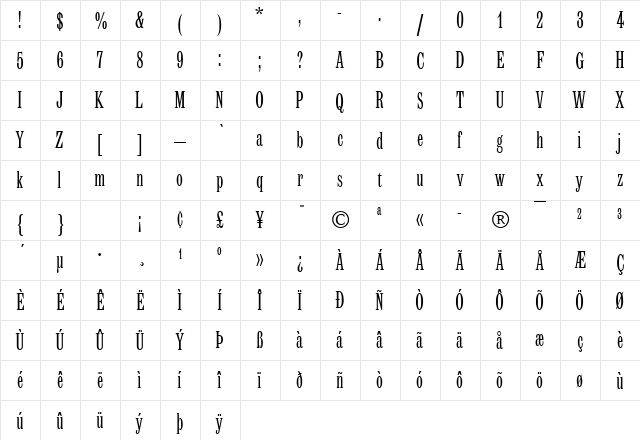
Latin MT Condensed Regular
Design Context for Latin MT Condensed Typeface
Latin MT Condensed is a composed and adaptable typeface that performs quietly and consistently across a wide range of design contexts. The condensed width makes it efficient for tight spaces without sacrificing legibility.